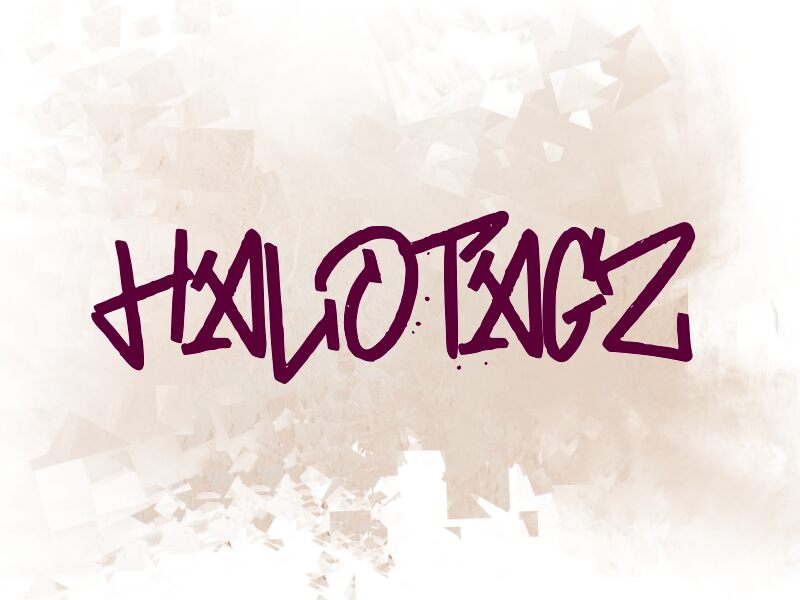
HALOTAGZ
Halotagz font by wep is executed in a classic graffiti style, with clear inspiration taken from actual tagging. While quite legible, each letter of this free graffiti font maintains enough uniqueness to serve as a standalone element. Used together, the letters flow smoothly to create proper textual pieces.
Besides individual word creation in art and design projects, Halotagz is ideal for headings, branding materials, logos and logotypes, apparel designs (caps), packaging designs (soaps), music cover art/cd booklets (metal albums), tattoos etc.